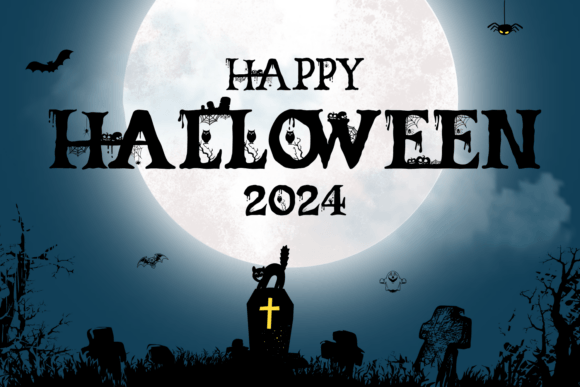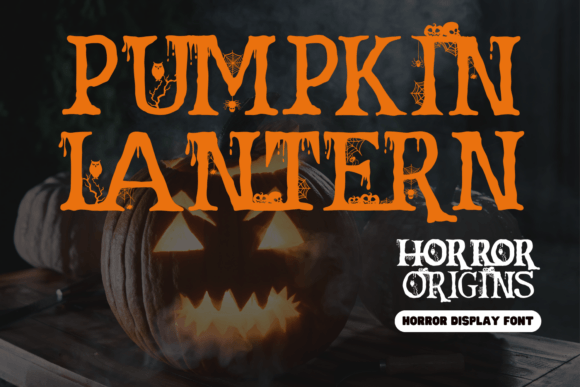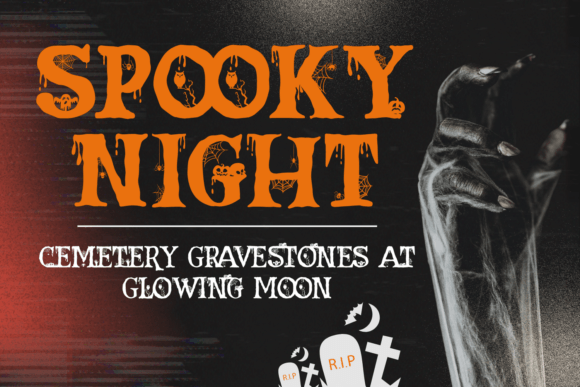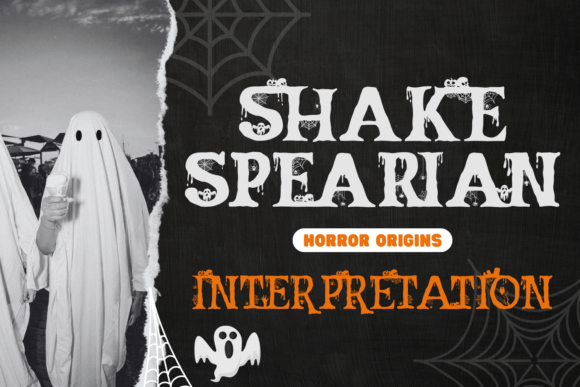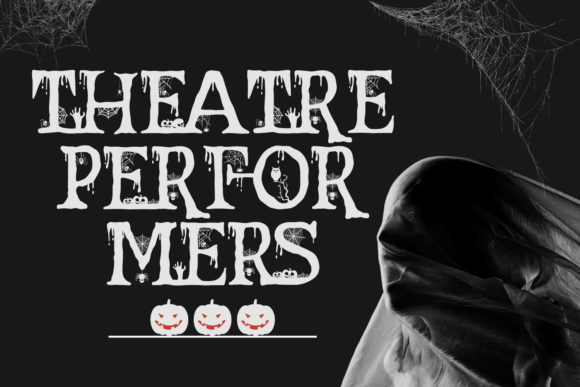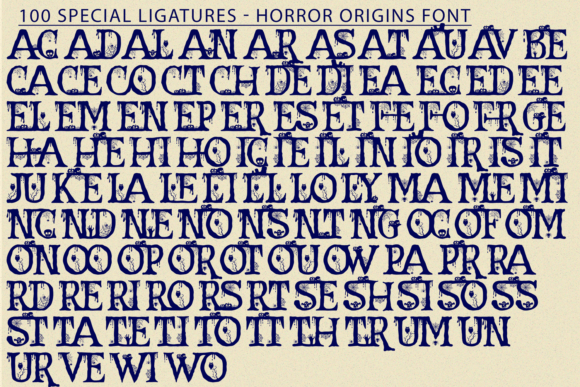
Get Ready for a Spine-Chilling Design Experience
As the clock strikes midnight on Halloween night, the moon casts an eerie glow over the streets, and the air is filled with the whispers of ghosts and goblins. It’s the perfect time to unleash your creativity and craft some spooky designs that will leave a lasting impression. For designers, finding the right font can be the key to unlocking a truly terrifying aesthetic.
Enter the Horror Origins Font, a delightfully creepy all-caps serif font that’s perfect for capturing the essence of Halloween. With its bold, spooky vibes and intricate details, this font is a valuable addition to any designer’s toolkit. Whether you’re creating a haunted house logo or a spooky social media post, the Horror Origins Font is sure to add an extra layer of eeriness to your design.
Horror Origins Font Key Features
- Font Family: Horror Origins is a unique, hand-drawn font designed for horror and thriller themes. It features a distressed, macabre aesthetic with intricate details and ornaments.
- Unique Characteristics: Horror Origins features a wide range of unique glyphs, including creepy creatures, skulls, and other horror-themed elements, making it perfect for adding a touch of eeriness to your designs.
Horror Origins Font Review
As a designer, I’ve had the chance to work with various fonts, and the “Horror Origins Font” is definitely an interesting one. ✨ The font’s unique blend of gothic and Victorian elements gives it a hauntingly beautiful feel that’s perfect for projects related to horror, mystery, or even steampunk.
Some of the features that stood out to me include:
- The wide range of characters, including some creepy symbols and accents
- The font’s versatility, making it suitable for both digital and print projects
- The clear and readable text, even at smaller font sizes
However, there are some limitations to consider: ⚠️ The font may not be as suitable for projects that require a more modern or minimalist look, and some users may find the font’s weight to be a bit too heavy for their taste.
Overall, I think the “Horror Origins Font” is a great choice for designers looking to add a touch of eeriness to their projects. While it may not be the most versatile font out there, its unique character and wide range of characters make it a great addition to any design library.
Tips for Getting the Most Out of Horror Origins Font
For the best results, use the Horror Origins font in bold or italic styles to add emphasis and create a spooky atmosphere.
Experiment with different font sizes and colors to create a sense of depth and contrast.
Combine the Horror Origins font with other creepy elements, such as horror-themed graphics and eerie backgrounds, to create a cohesive and terrifying design.